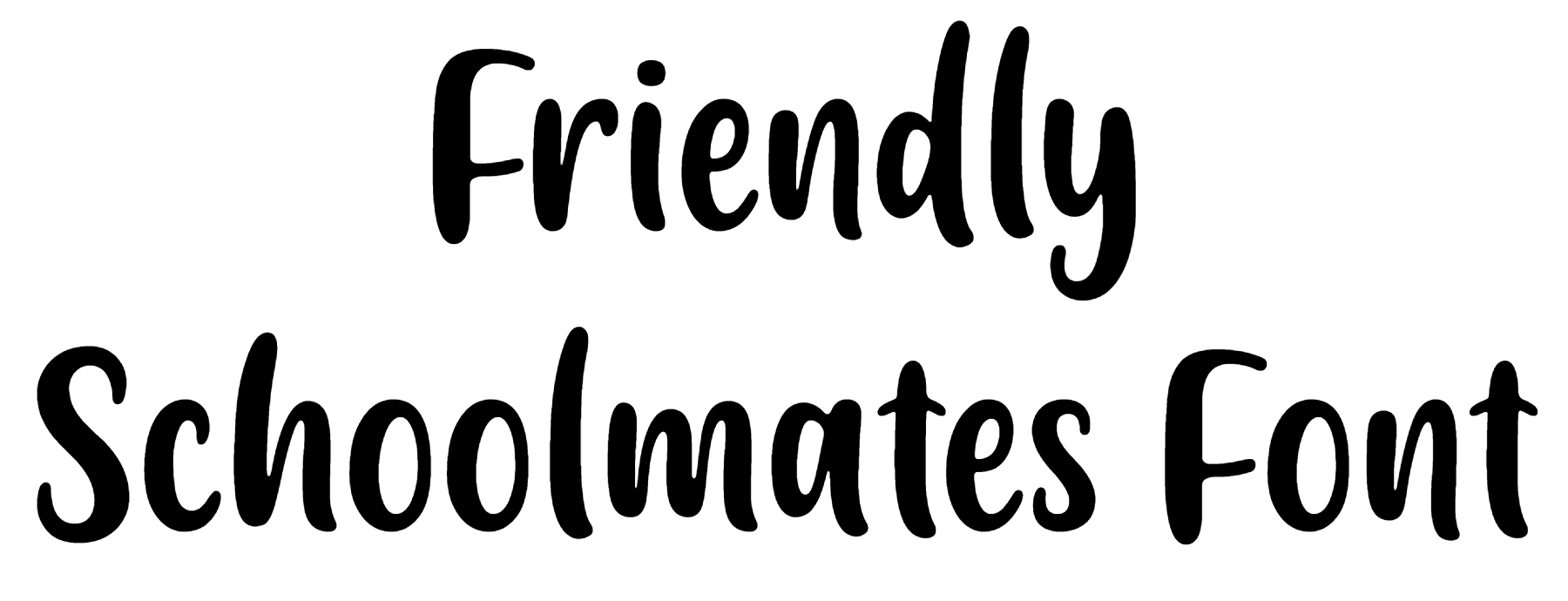
Situjuh Nazara designed Friendly Schoolmates, a delightful, warm brush script typeface, and released it through the 7NTypes foundry. He specifically crafted the font to mimic spontaneous handwritten notes, bringing a lively, youthful energy to creative layouts.
Friendly Schoolmates
Friendly Schoolmates is a script font designed by Situjuh Nazara and published by 7NTypes (2018). The letters have the smooth movement of real pen lettering, which is why even a single name looks special in it. You get two styles in one free ZIP, and the preview above lets you test each one before you download.
What You Can Type With Friendly Schoolmates
With complete upper and lowercase letters and all ten digits, Friendly Schoolmates is ready for real wording, not just a single headline. Everyday marks like &, !, ? and @ are there too. Thanks to its accented letters, it also works for Spanish, French, German, Portuguese and Italian, not just English.
How to Use the Alternate Letters in Friendly Schoolmates
Where Friendly Schoolmates Works Best
Think of Friendly Schoolmates for wedding invitations, logos and signature-style headings. Script fonts read best in short bursts, so keep it to names, titles and one-line quotes. Skip all caps: script capitals are drawn to start a word, not to fill one. Because the family has more than one style, you can mix them in a single design for headings, subheadings and highlights.